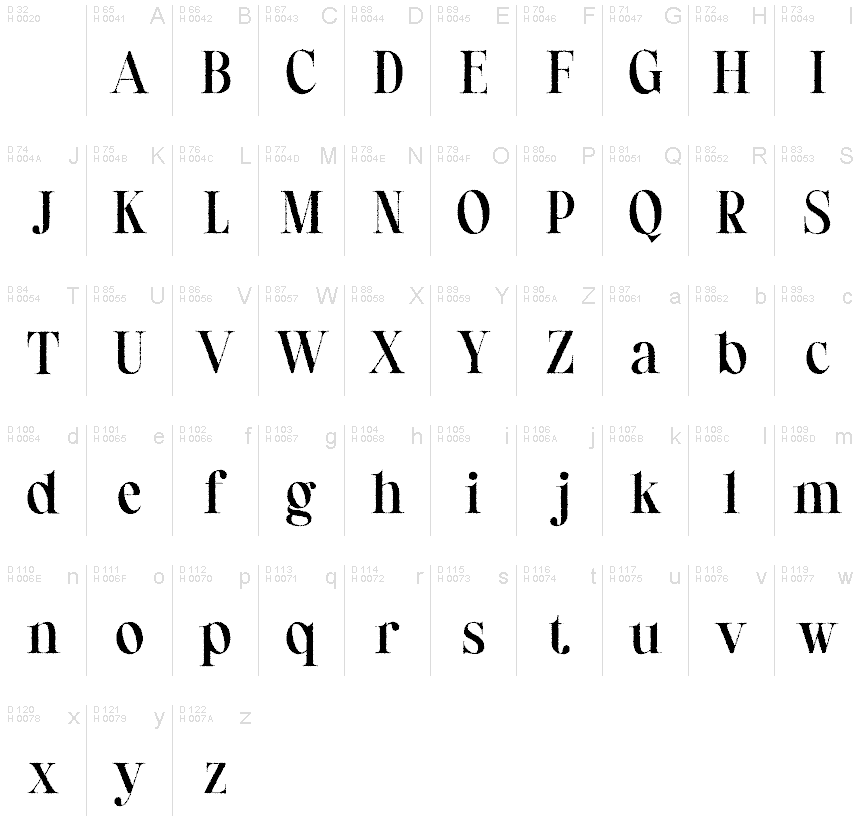
Romildo Rough Regular Demo
Romildo Rough font from Craft Supply Co. has a wonderful eroded texture that makes it feel slightly vintage and somewhat retro. The distressed serif font comes with an expressive character and artistic tone in its design. Ideal for displaying artistic typography with charm, the typeface carries a professional yet friendly look for any advertising venture.